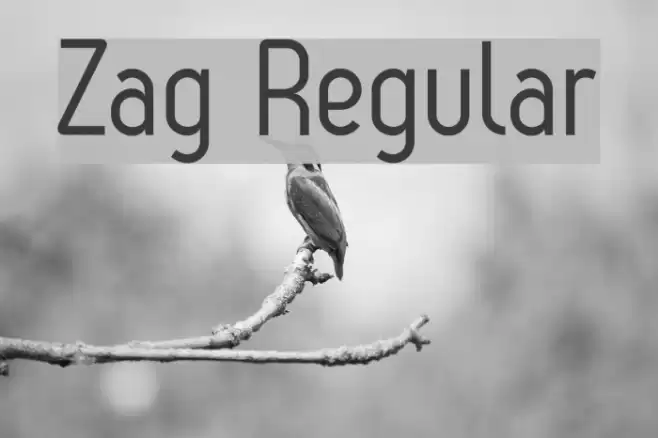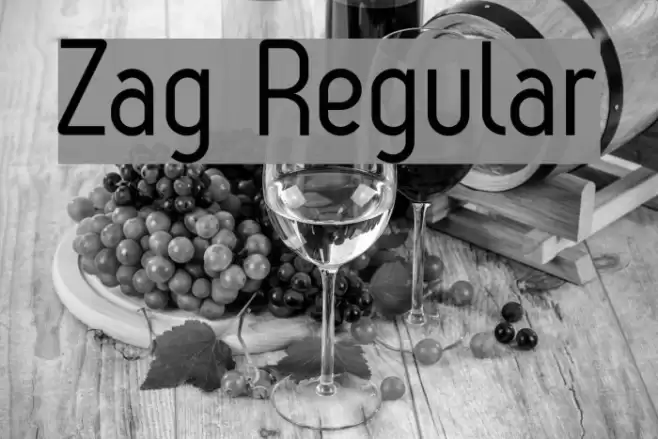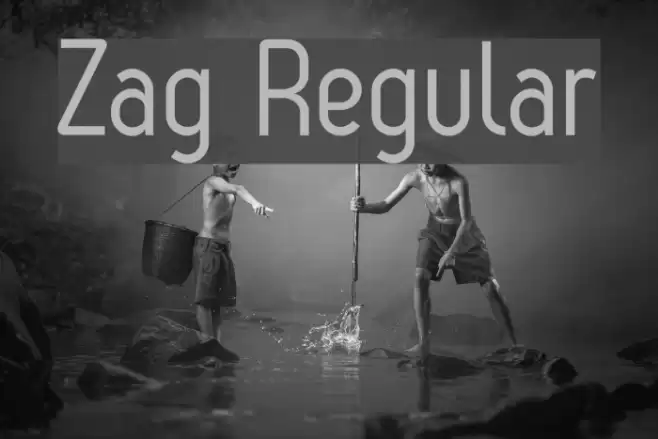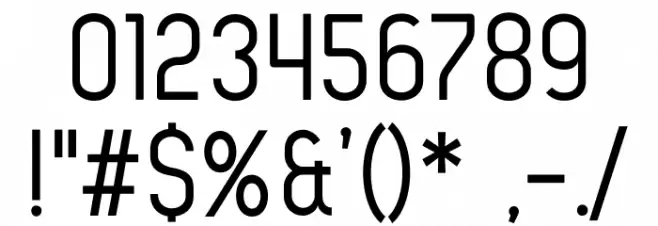
Zag Regular Font
Zag Regular Description
This typeface features a clean and modern sans-serif design, characterized by its geometric shapes and uniform stroke widths. The letters are tall and narrow, giving it a sleek and contemporary appearance. The uppercase and lowercase letters maintain a consistent height ratio, ensuring readability and balance. The numerals are clear and distinct, matching the overall style of the alphabet. Special characters are well-integrated, maintaining the font's cohesive look. This font's simplicity and clarity make it versatile for various design applications.
A modern, geometric sans-serif font with clean lines and uniform strokes from Sans Serif fonts.